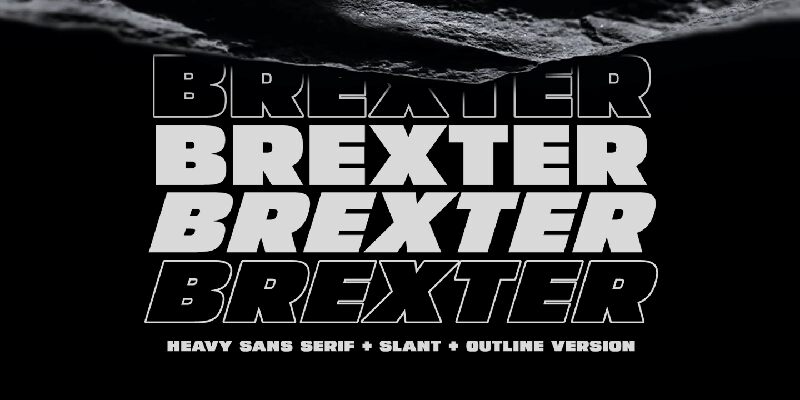
Brexter, the ultra-bold sans serif font designed by Sahrul Hidayat, is the perfect choice for projects that require a bold and impactful look. Its extra-expanded width allows for maximum impact and attention-grabbing headlines. Brexter's clean lines and modern style make it suitable for a variety of projects, from advertising campaigns to editorial layouts. Use Brexter to create stunning logos, book covers, or packaging designs that demand attention. With its bold and modern look, Brexter is sure to make an impression on any audience.